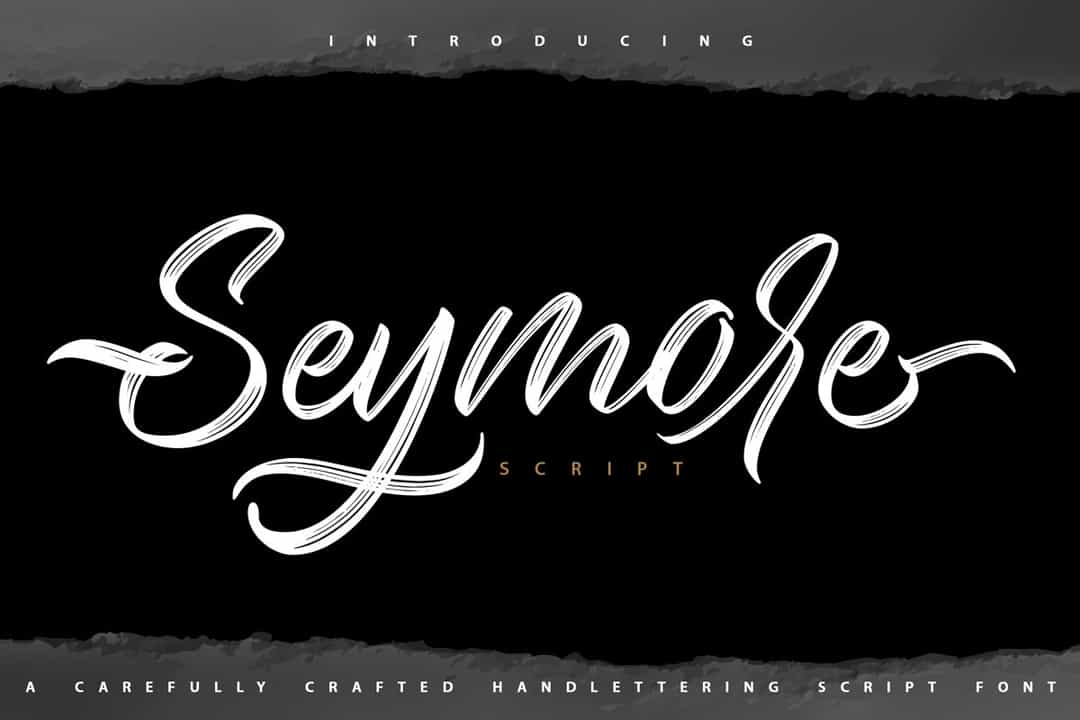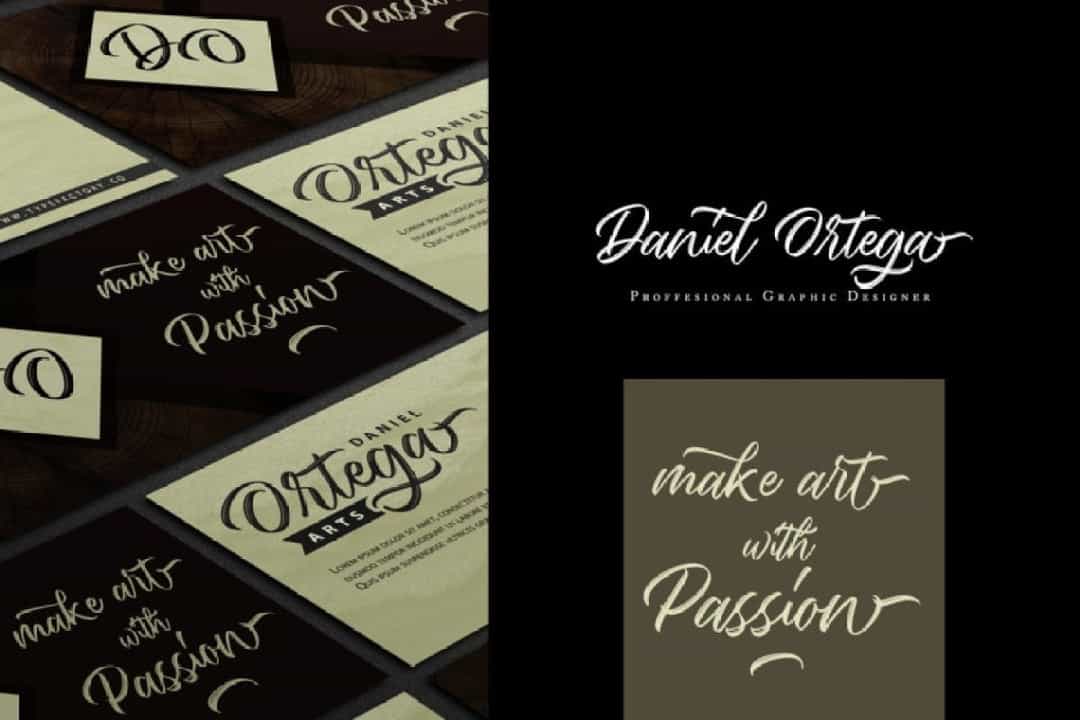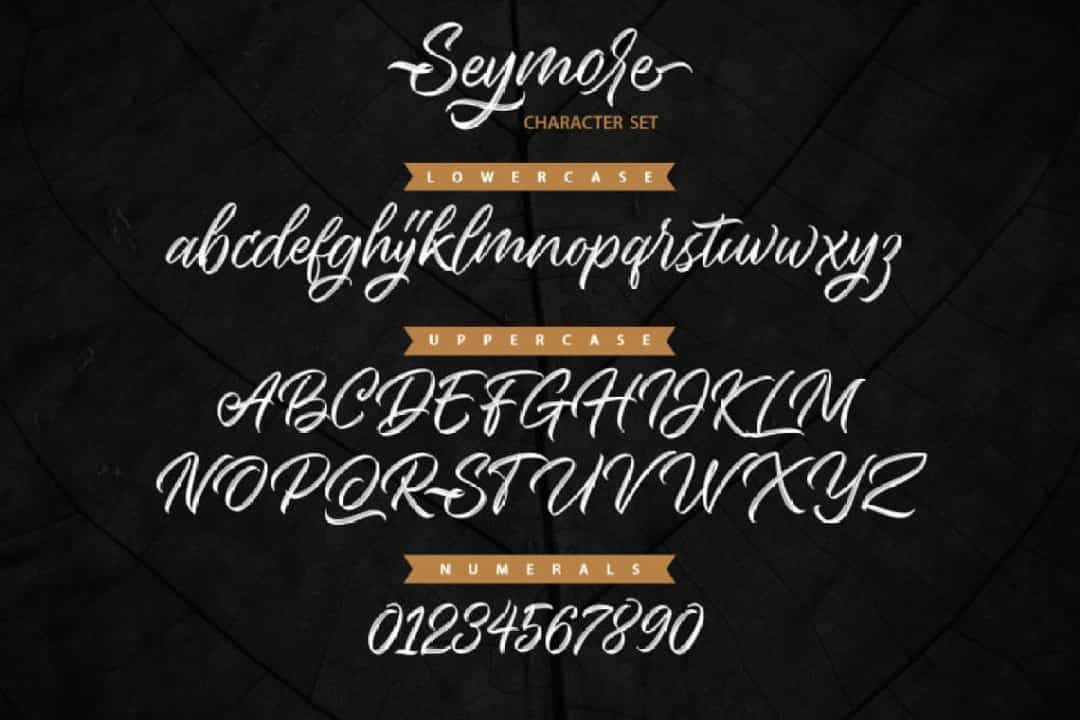
As for the Seymore Brush Script Font, it can be applied for Brands, Art, Lifestyle Design, Titles, Logos, magazines and etc. Seymore has both the upper and lower case letters, numerals, multilingual support, punctuation, ligatures and swashes.